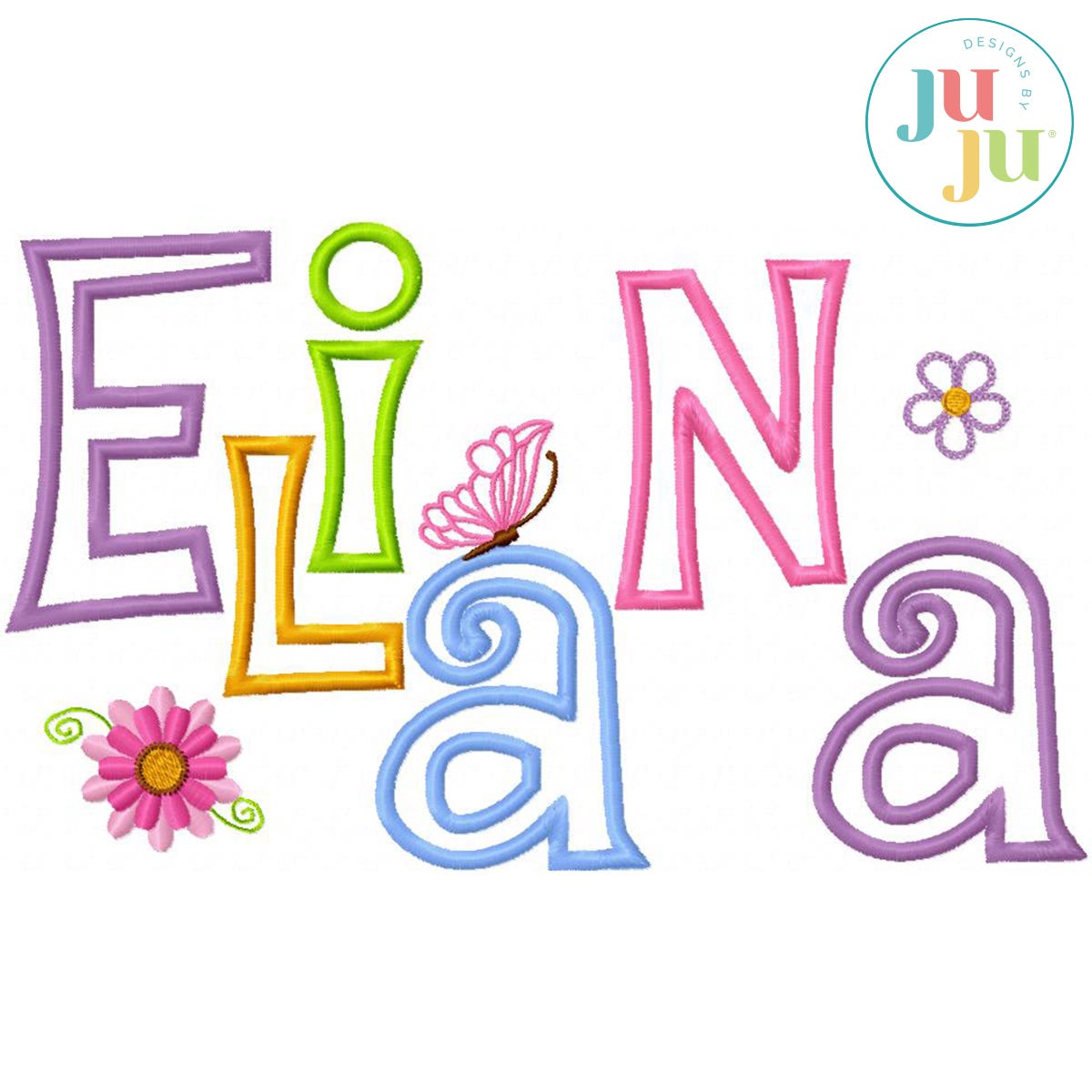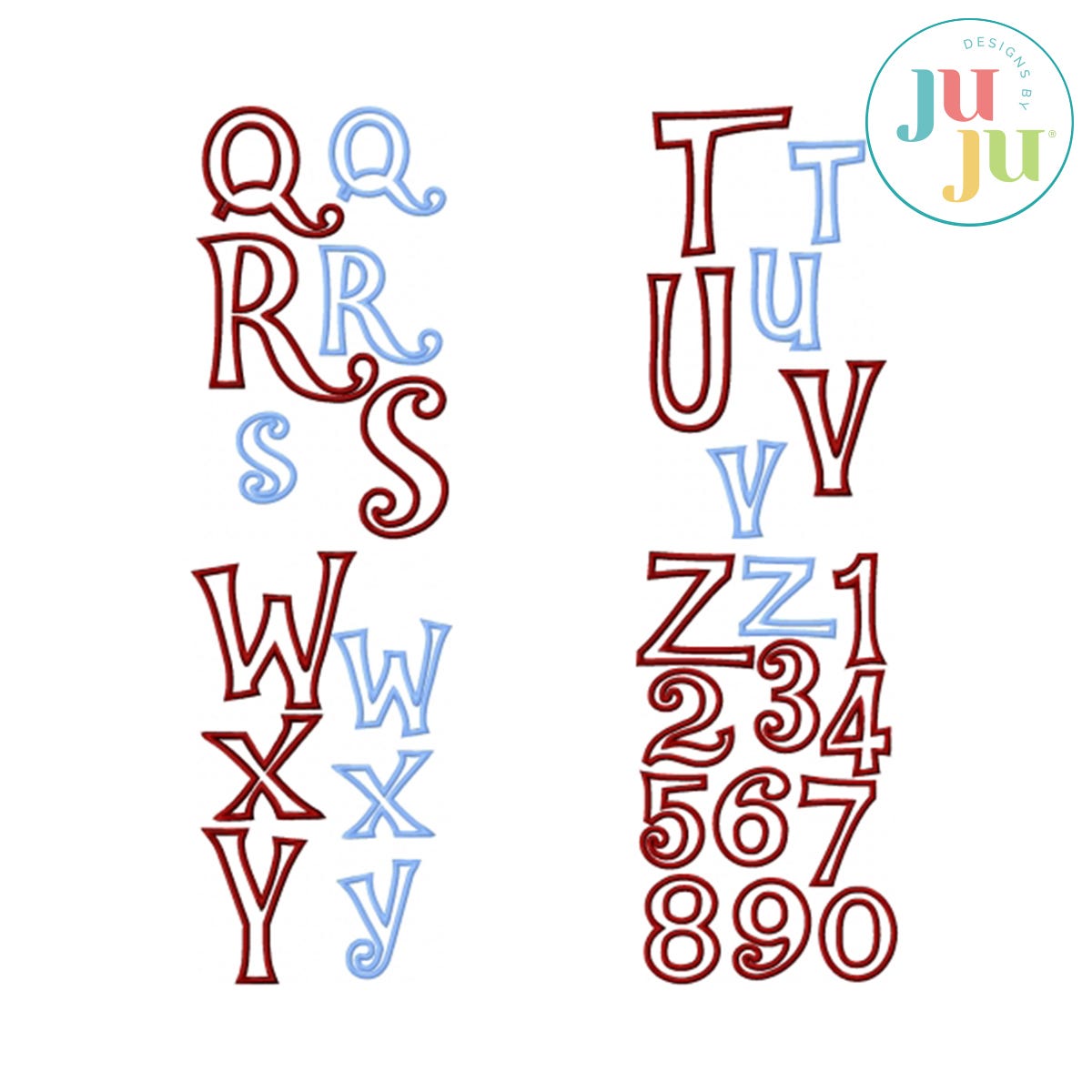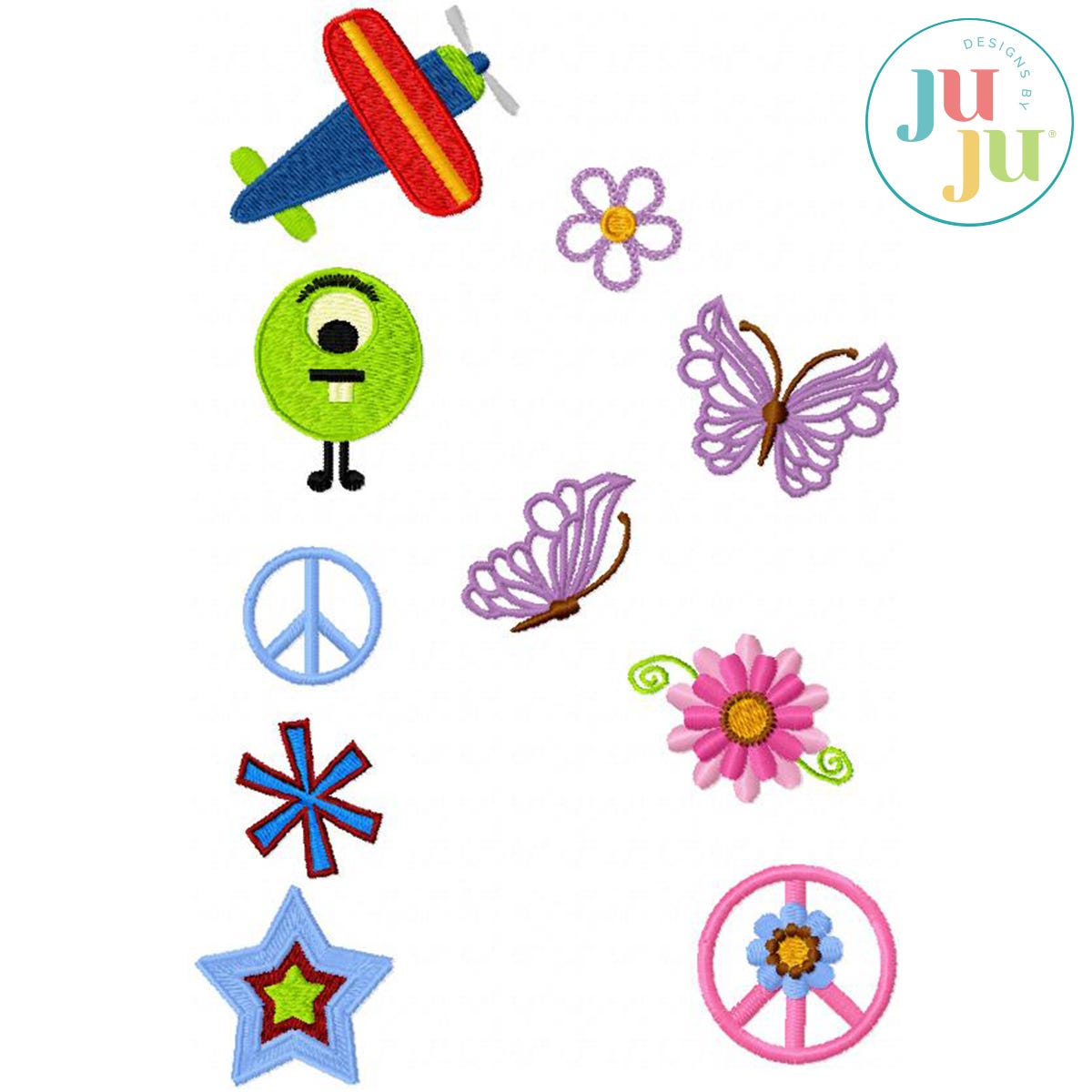
Whoa Nelly Satin Stitch Applique Embroidery Font by Oma's Place
This applique font is fun and quirky and perfect for those name pillows you have been wanting to
make. But dont stop there. Use the initials to place on journals, bookbags, shirts, totes etc. Part of
the quirkiness of the alphabet is not only the odd shape of the letters but also the different heights of
each letter. In addition, many of the lower case letters are actually smaller sizes of the capital letters.
Comes with upper and lower case letters, as well as numbers. No punctuation marks are included.
It also comes with 10 miniature embellishments (5 for boys; 5 for girls) to scatter among the letters.
The embellishments, too, can be used on other items apart from the name pillows. Great on baby
bibs and onesies, too.
Capital letters vary in height from 2.5" 4.5"
Lower case letters range from: 2.0-3.75"